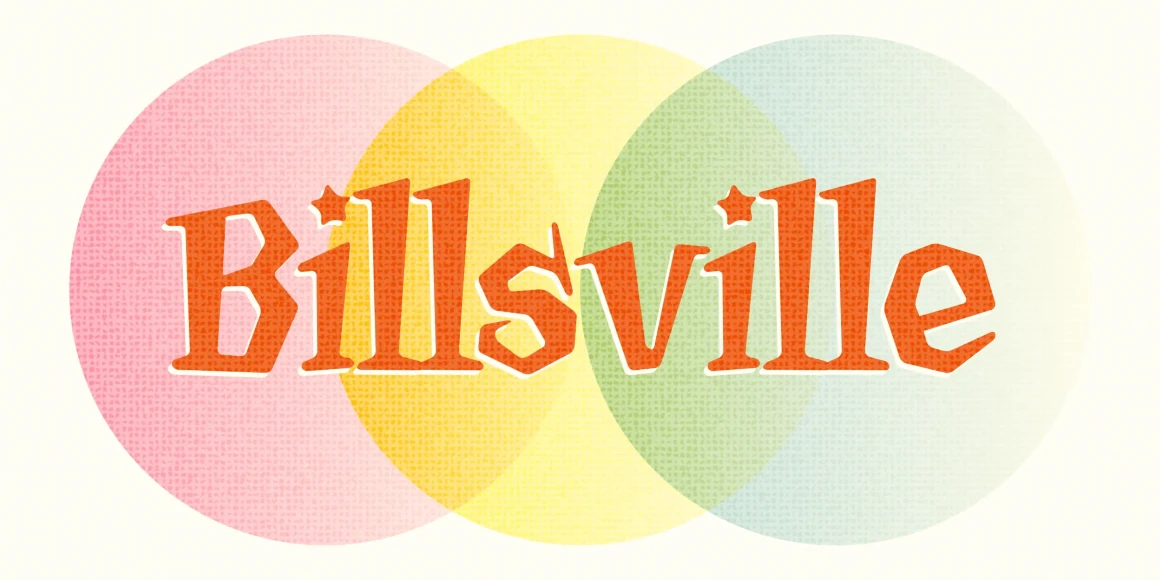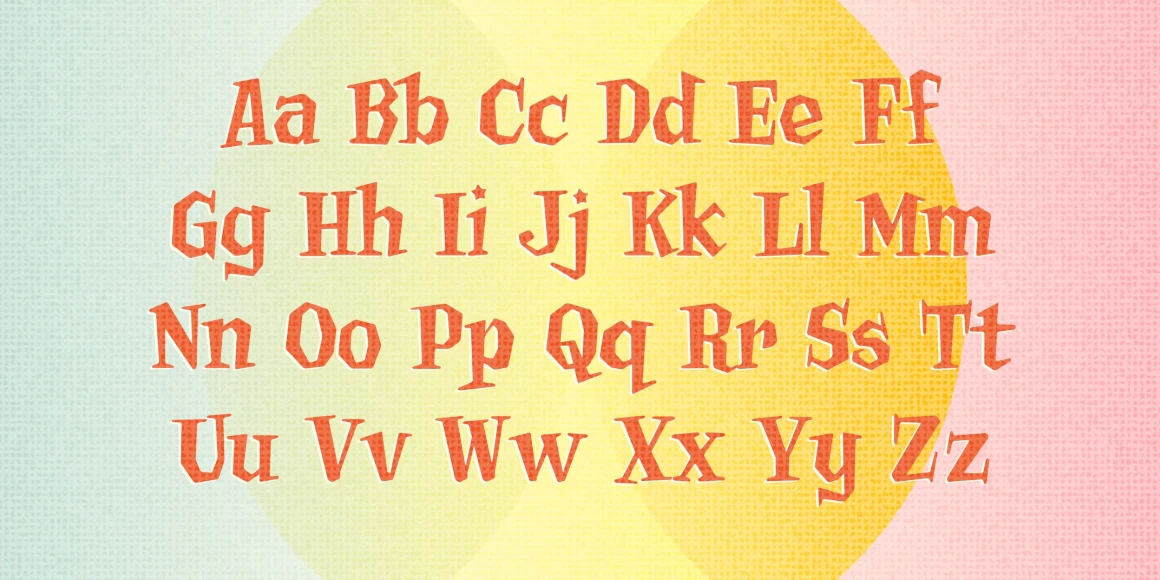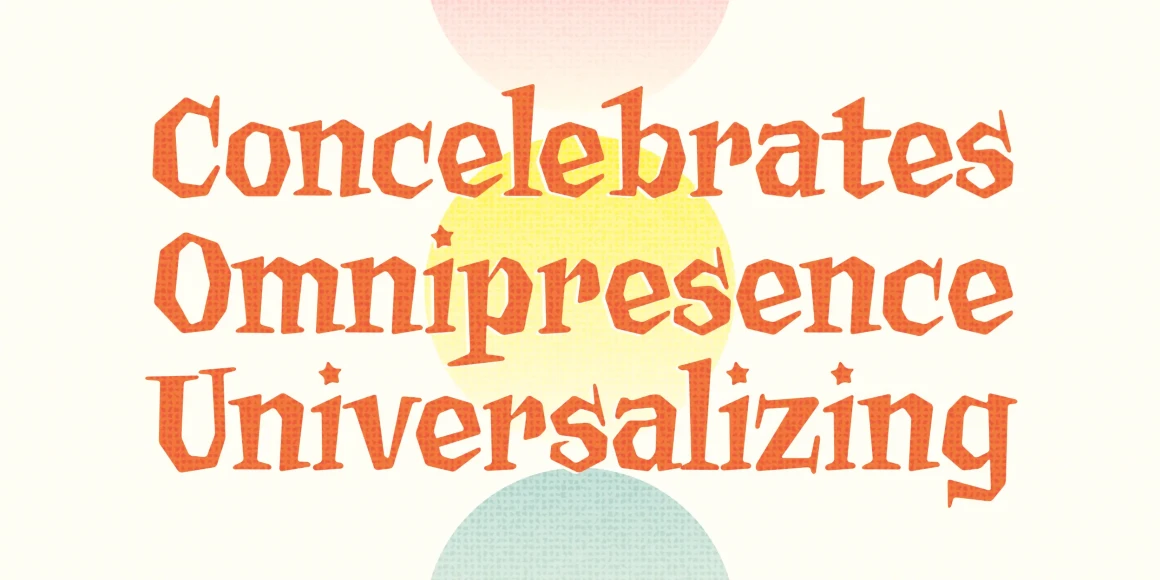
Billsville
Billsville is a fun font that mixes the casual sassy flair of an old Flintstone cartoon with the upright legible nature of a classic serif font to create something entirely new. Although based primarily on straight lines and simple letterforms, Billsville has got softly rounded corners that make everything seem softer.
A friendly, versatile display font named after Williamstown, MA, home of a website called Tripod who originally commissioned this font for their members in 1997.